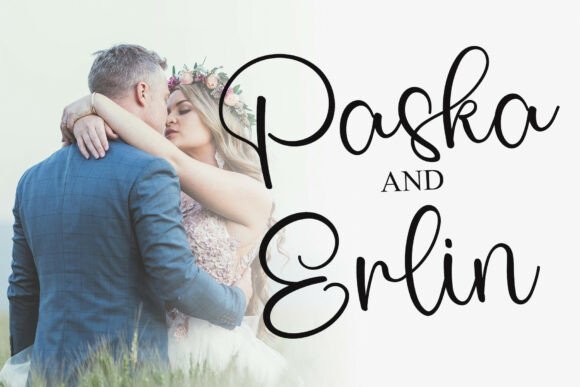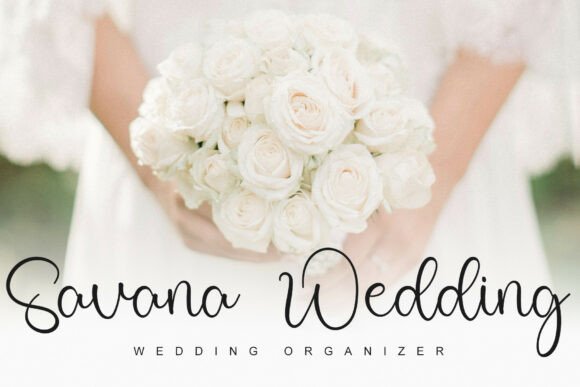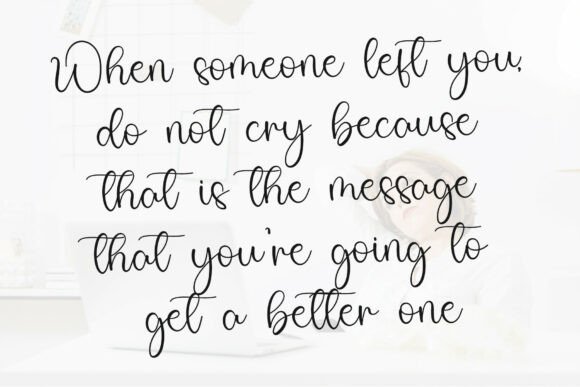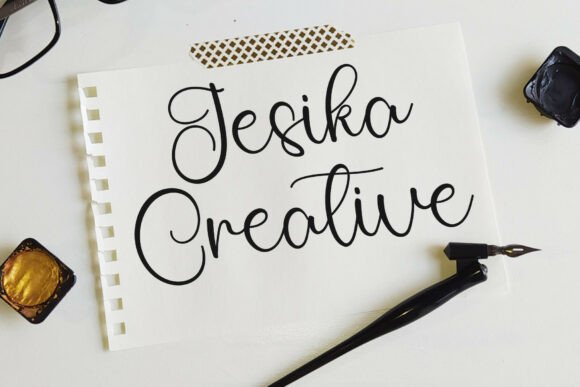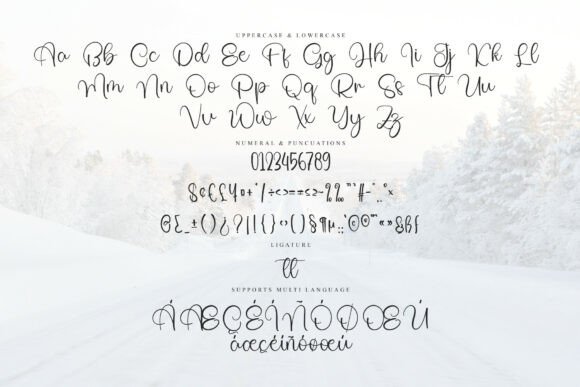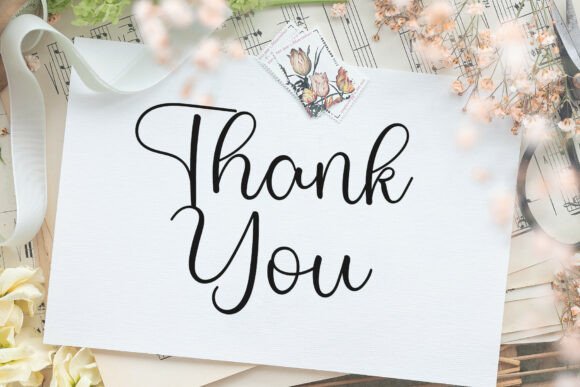
The Perfect Blend of Whimsy and Elegance
Have you ever found yourself sitting at your desk, surrounded by scribbled notes, scattered sketches, and a million ideas swirling in your head? You know that moment when creativity strikes, and you’re desperate to bring your vision to life? For designers, this is a familiar feeling, and it’s exactly the kind of moment when the right font can make all the difference.
Enter the Boho Font, a sweet and cursive handwritten font that’s sure to add a touch of joy and romance to any project. Whether you’re working on branding, logo design, or even a wedding invitation, this font is the perfect fit. Its elegant yet casual vibe makes it an invaluable tool for designers looking to add a unique twist to their work.
Key Features of Boho Font
- Character Set: The font includes a comprehensive set of characters, including uppercase and lowercase letters, numbers, punctuation marks, and special characters, making it suitable for various design applications.
- Unique Characteristics: Boho Font features a distinctive, hand-drawn aesthetic with intricate details and flourishes, giving it a bohemian or vintage feel that sets it apart from other fonts.
- Font Style: The font is available in a single style, but its unique characteristics make it suitable for use in a variety of contexts, from fashion and lifestyle branding to editorial and creative design.
Boho Font Review
As a designer, I’m always on the lookout for unique and stylish fonts that can elevate a design. Boho Font is one such font that caught my attention. Here’s my honest review.
- Boho Font has a beautiful, eclectic vibe that’s perfect for creative projects.
- The font is highly customizable, with options to adjust the weight, spacing, and style.
- It’s a great choice for headings and titles, adding a touch of sophistication to any design.
- The font may not be suitable for body text, as it can be quite busy and overwhelming.
- Some users may find the font difficult to read, especially at smaller font sizes.
- It’s not a great choice for minimalist designs, as the font’s ornate details can dominate the layout.
Overall, I think Boho Font is a great choice for designers who want to add a touch of whimsy and creativity to their projects. While it may have some limitations, the font’s unique style and customization options make it a valuable addition to any design toolkit.
Boho Font is perfect for:
- Creative business branding and marketing materials.
- Travel and adventure-inspired designs.
Remember to pair Boho Font with complementary colors and textures to create a unique and eye-catching design.
Alternative Fonts to Boho Font
Boho Font is a popular script font known for its elegant, handwritten feel. However, designers may be looking for alternatives that offer similar characteristics or distinct differences. Here are a few options:
Carolyna Pro is a modern script font that boasts a flowing, cursive feel. It’s perfect for designs that require a touch of sophistication and elegance, such as wedding invitations, luxury branding, or high-end advertising. Compared to Boho Font, Carolyna Pro has a more refined and polished look, making it suitable for more formal applications.
Pacifico is a beautiful script font with a relaxed, beachy vibe. It’s ideal for designs that need a carefree and laid-back feel, such as summer promotions, travel branding, or outdoor events. Unlike Boho Font, Pacifico has a more casual and informal tone, making it perfect for designs that require a laid-back atmosphere.
Great Vibes is a modern script font with a dynamic and energetic feel. It’s suitable for designs that require a bold and attention-grabbing look, such as music festivals, sports events, or energetic advertising. Compared to Boho Font, Great Vibes has a more vibrant and playful tone, making it perfect for designs that need to stand out.